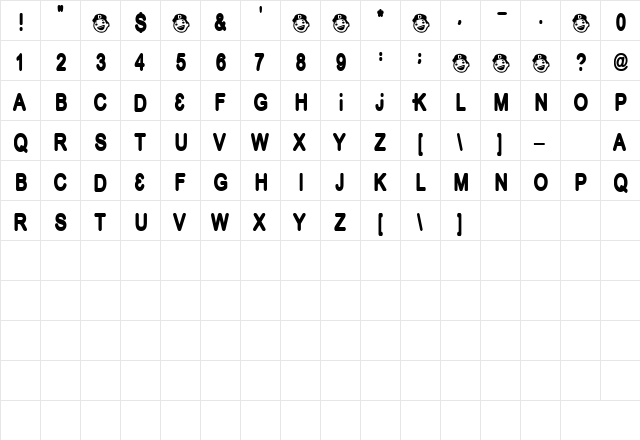
Jodigirl Regular
Design Context for Jodigirl Typeface
Jodigirl takes a measured approach to typography — its balanced proportions and neutral character make it a reliable workhorse for both digital and print work.